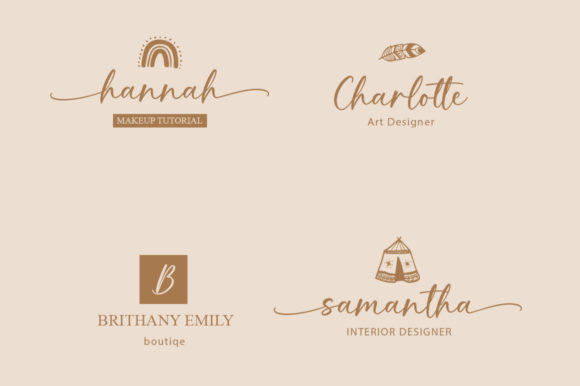
Bohemian Font
db-ku.com - Script & Handwritten -- Bohemian is a lovely and timeless handwritten font. It is the best choice for creating eye catching logos, branding and quotes. This font is PUA encoded which means you can access all of the glyphs and swashes with ease!